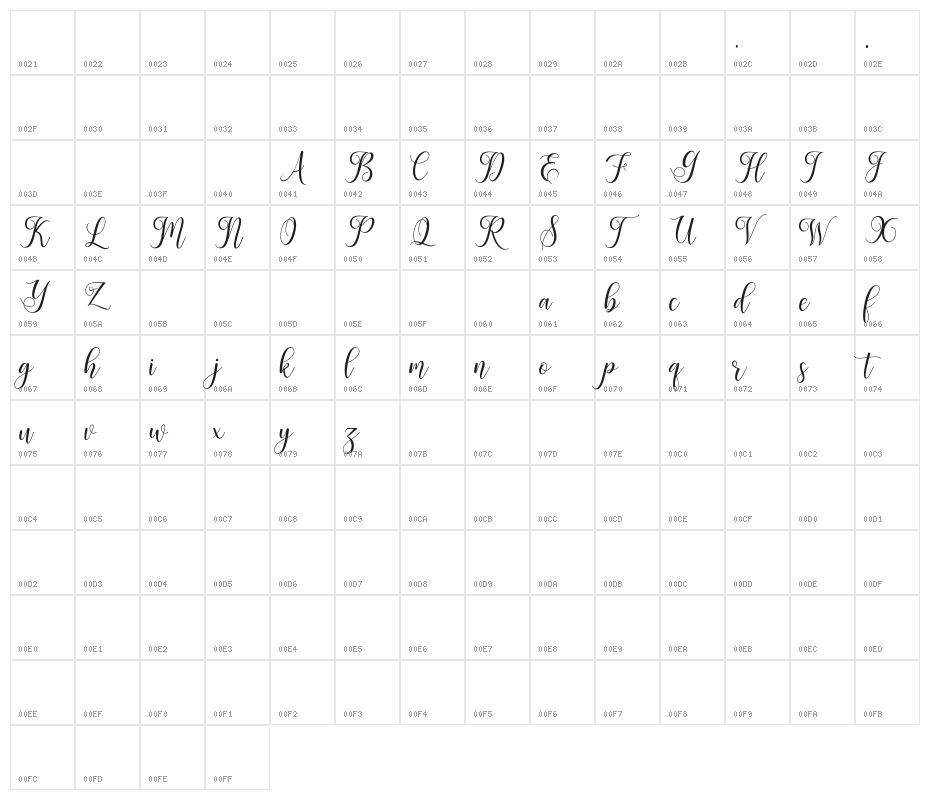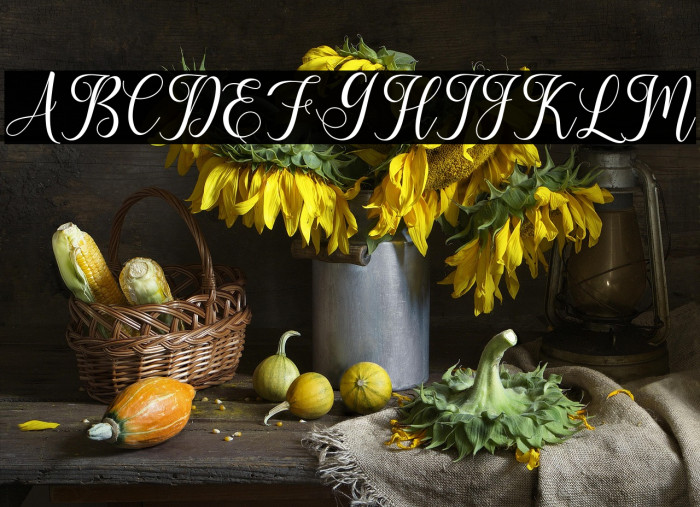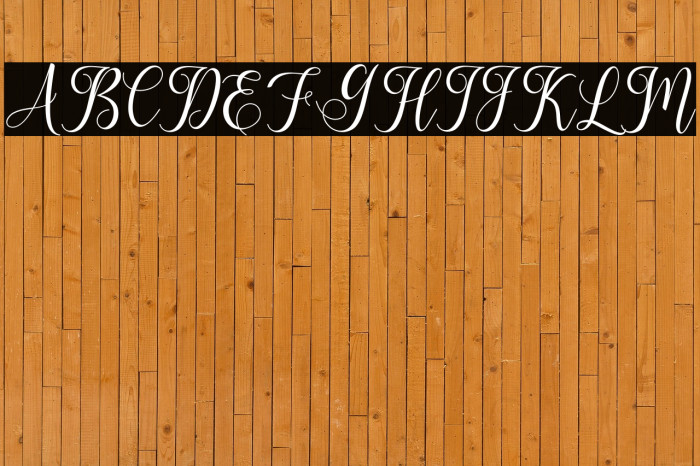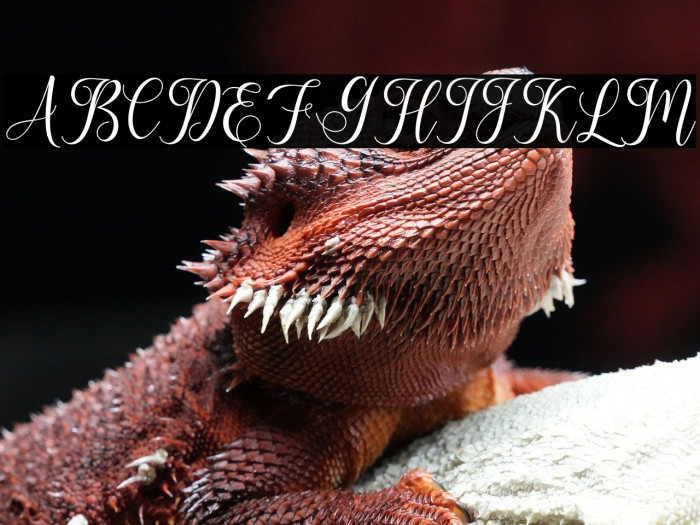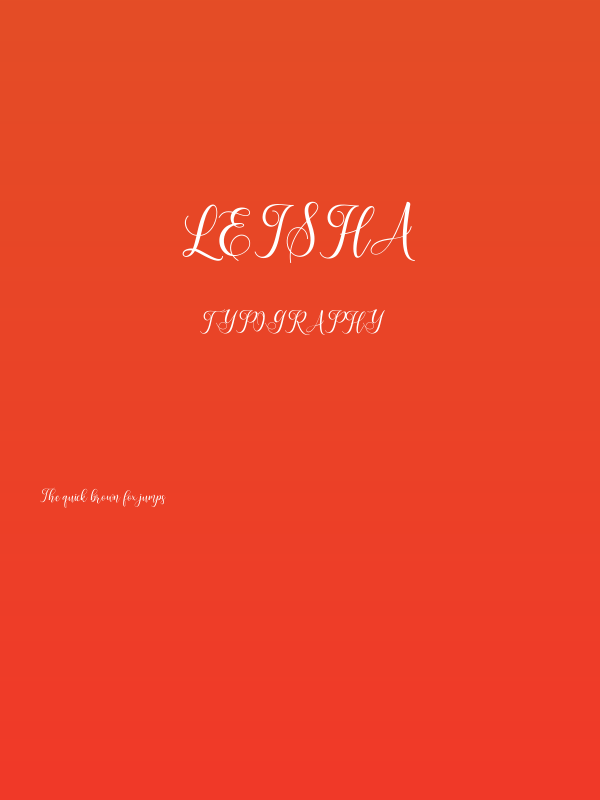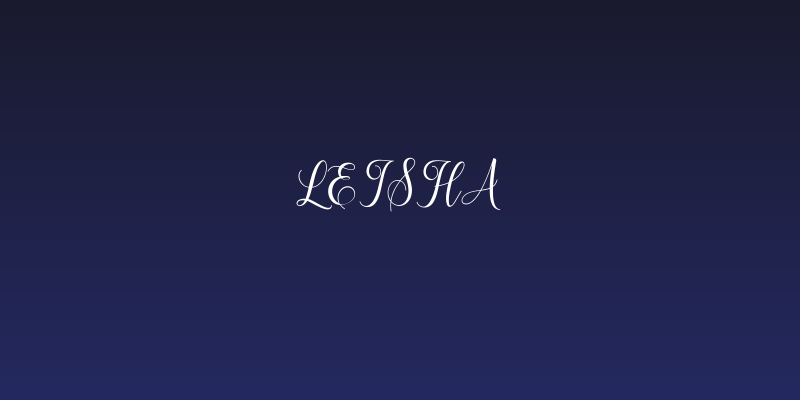
leisha Font
leisha Description
This elegant script font features flowing, interconnected letters with a classic calligraphic style. The uppercase letters are adorned with intricate swashes and flourishes, giving them a sophisticated and decorative appearance. The lowercase letters maintain a smooth, cursive flow, enhancing readability while retaining a stylish flair. The font's overall design is reminiscent of traditional handwriting, making it suitable for formal invitations, branding, and artistic projects. Its balanced contrast and moderate character spacing ensure legibility without sacrificing its ornate aesthetic.
| Proposed Projects | Ideal for wedding invitations, branding, greeting cards, and artistic projects. |